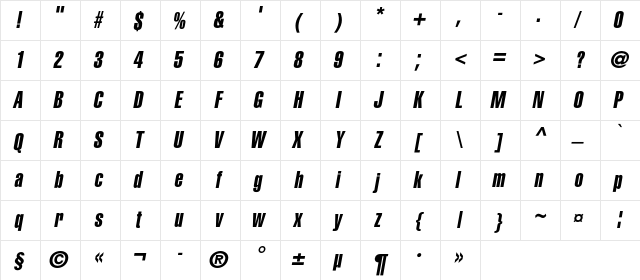
AGLettericaExtraCompressedC Italic
Design Context for AGLettericaExtraCompressedC Typeface
AGLettericaExtraCompressedC is a composed and adaptable typeface that performs quietly and consistently across a wide range of design contexts. The slanted form adds forward momentum and visual energy.
Pro Tip: Try AGLettericaExtraCompressedC for annotation and caption copy alongside an upright companion — the contrast in angle creates a dynamic but ordered typographic system.